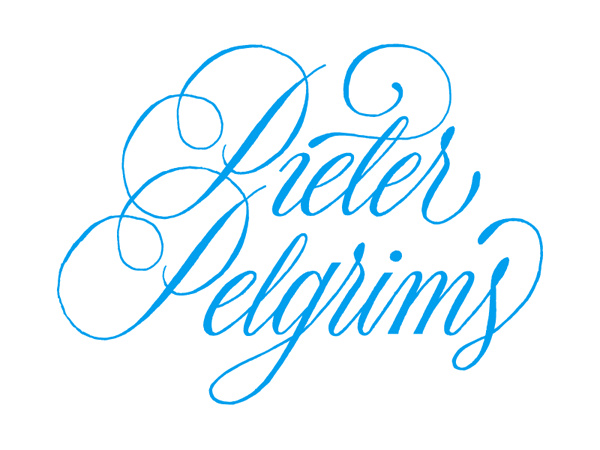
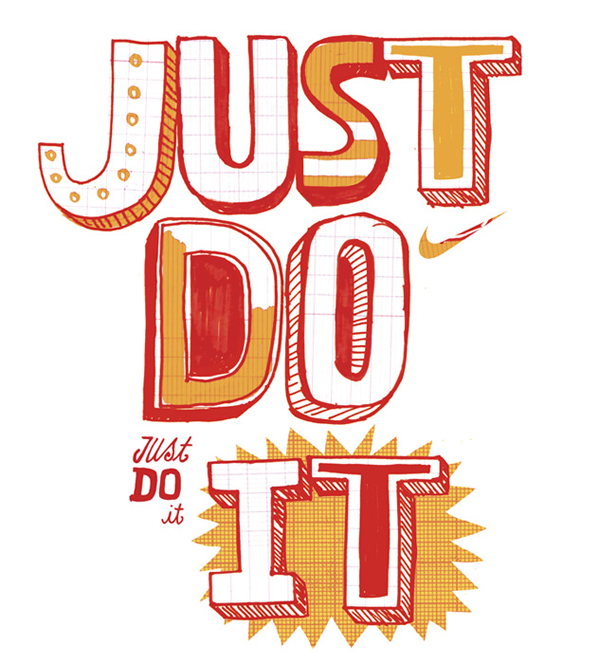
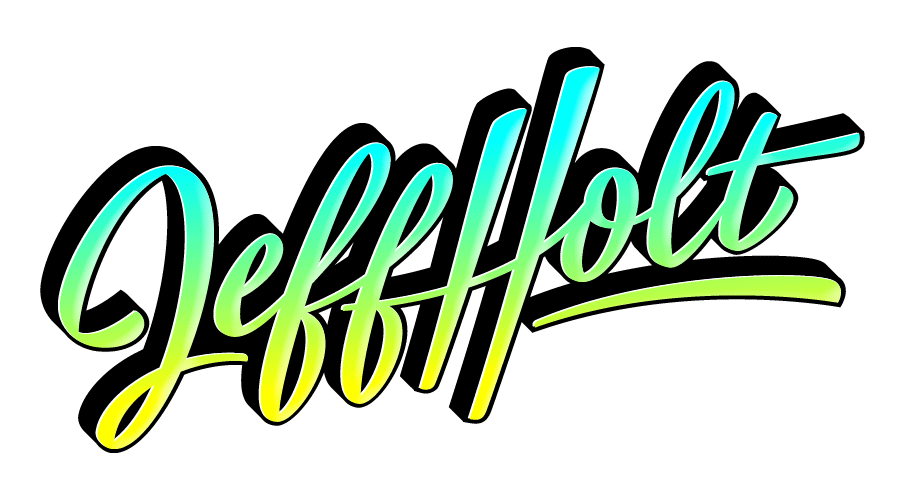
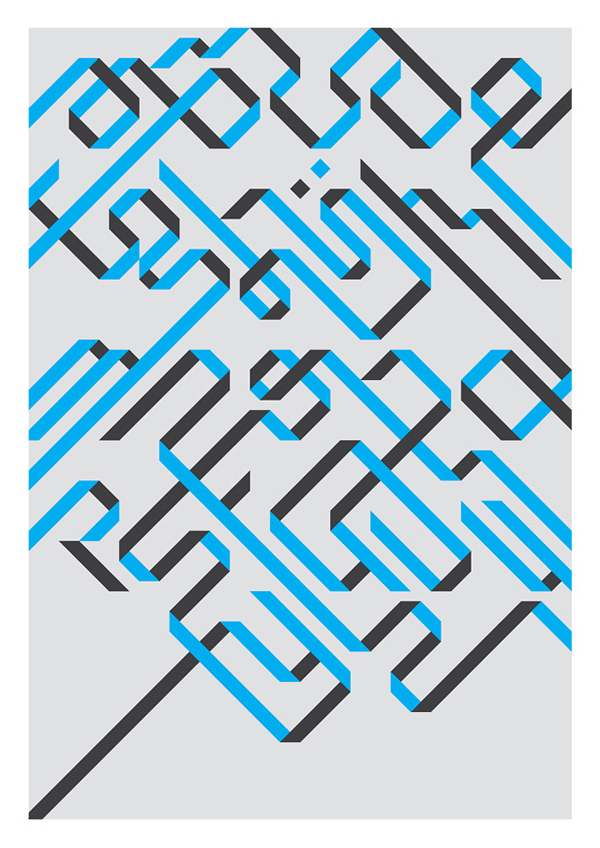
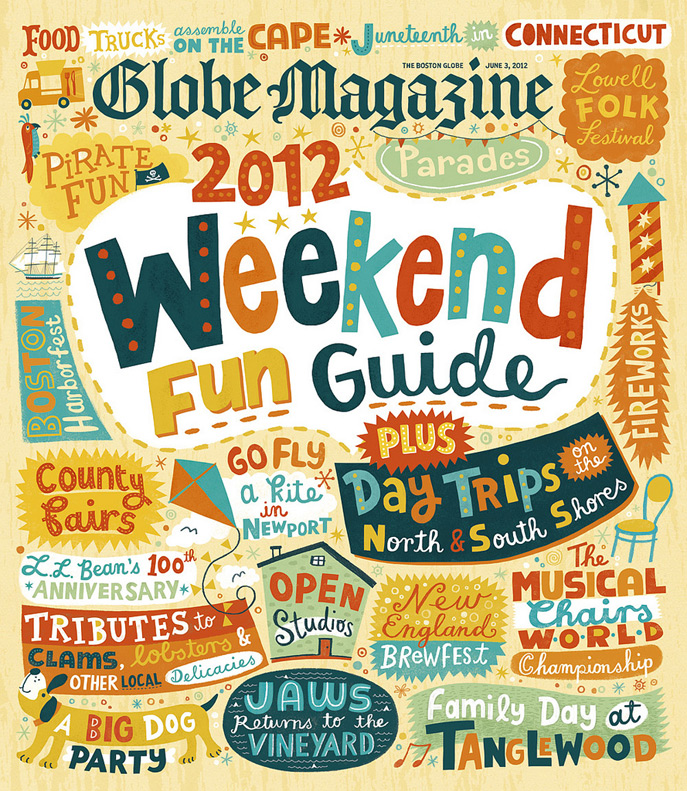
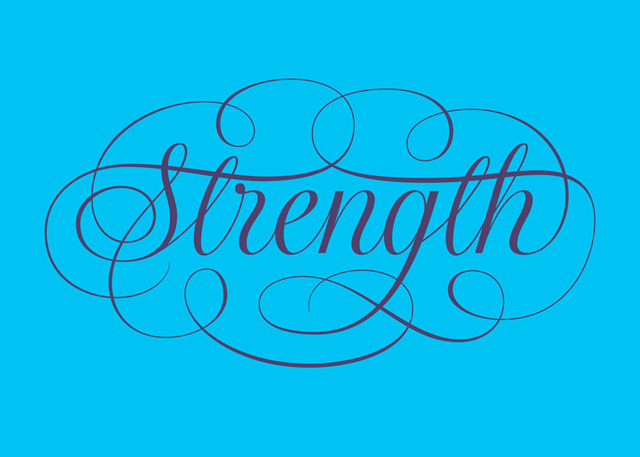
JORDAN JELEV for the FONTMAKER
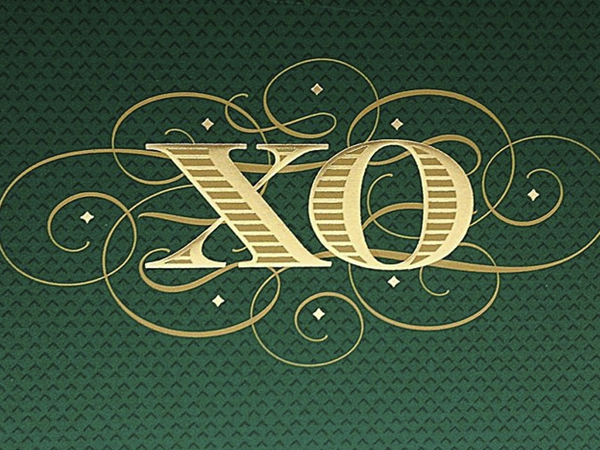
JORDAN JELEV for the FONTMAKER
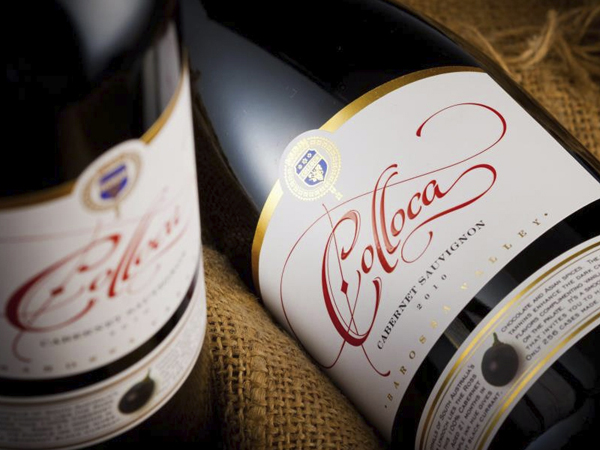
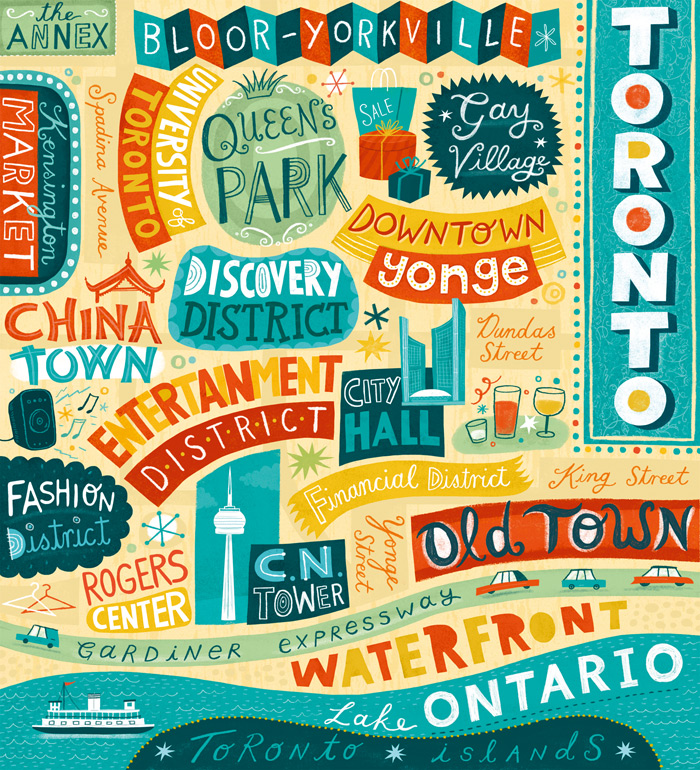
JORDAN JELEV for the FONTMAKER
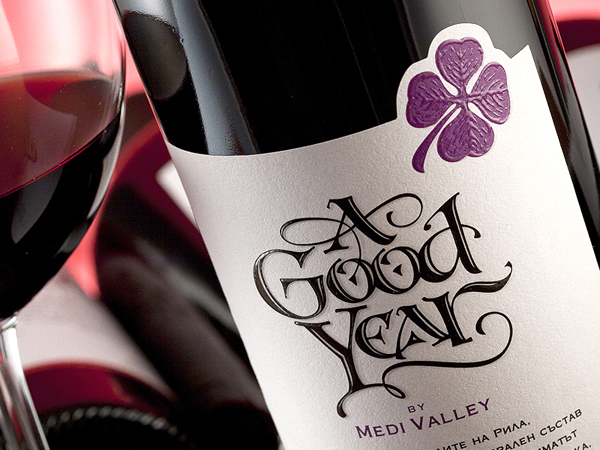
JORDAN JELEV for the FONTMAKER
Elegant and original graphics combining high skill with conceptual imagery.